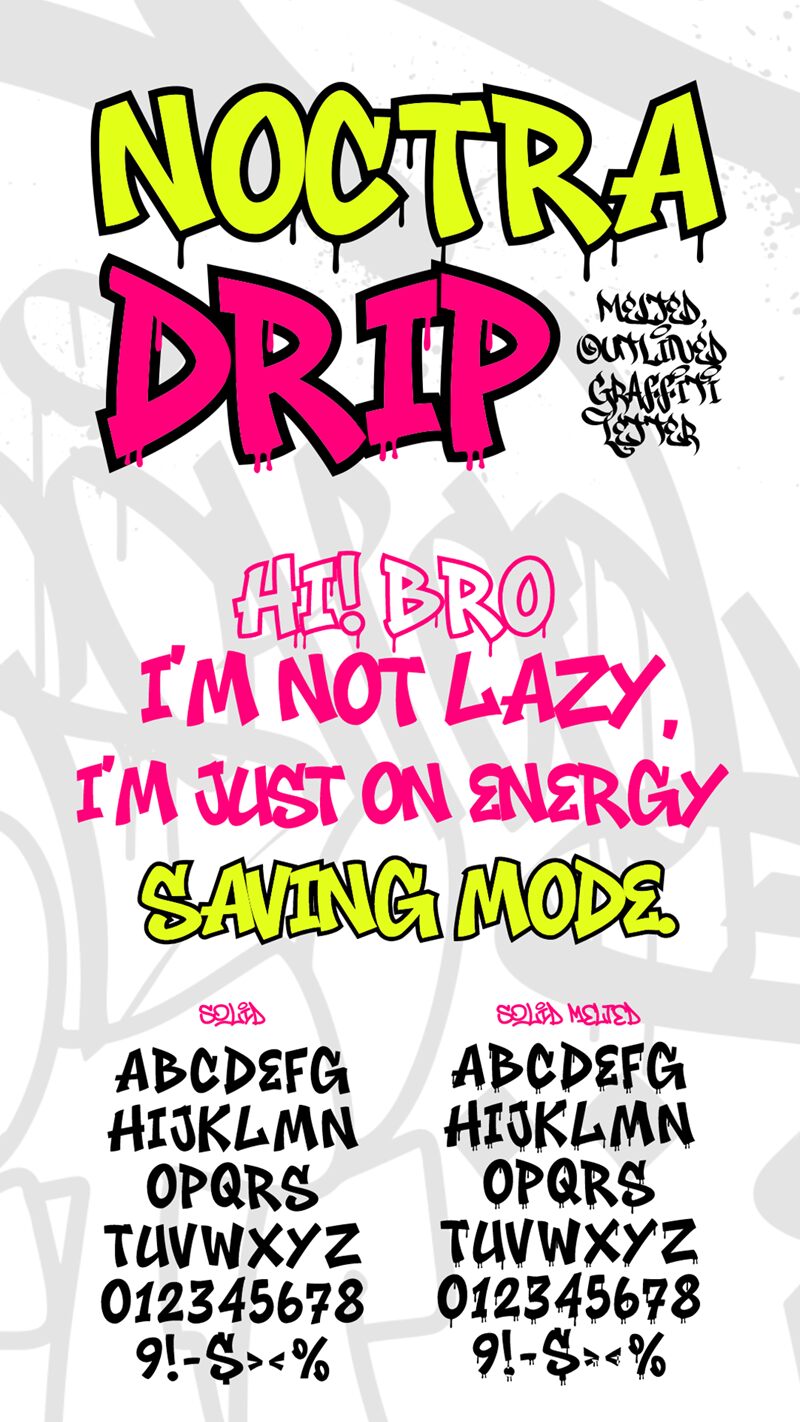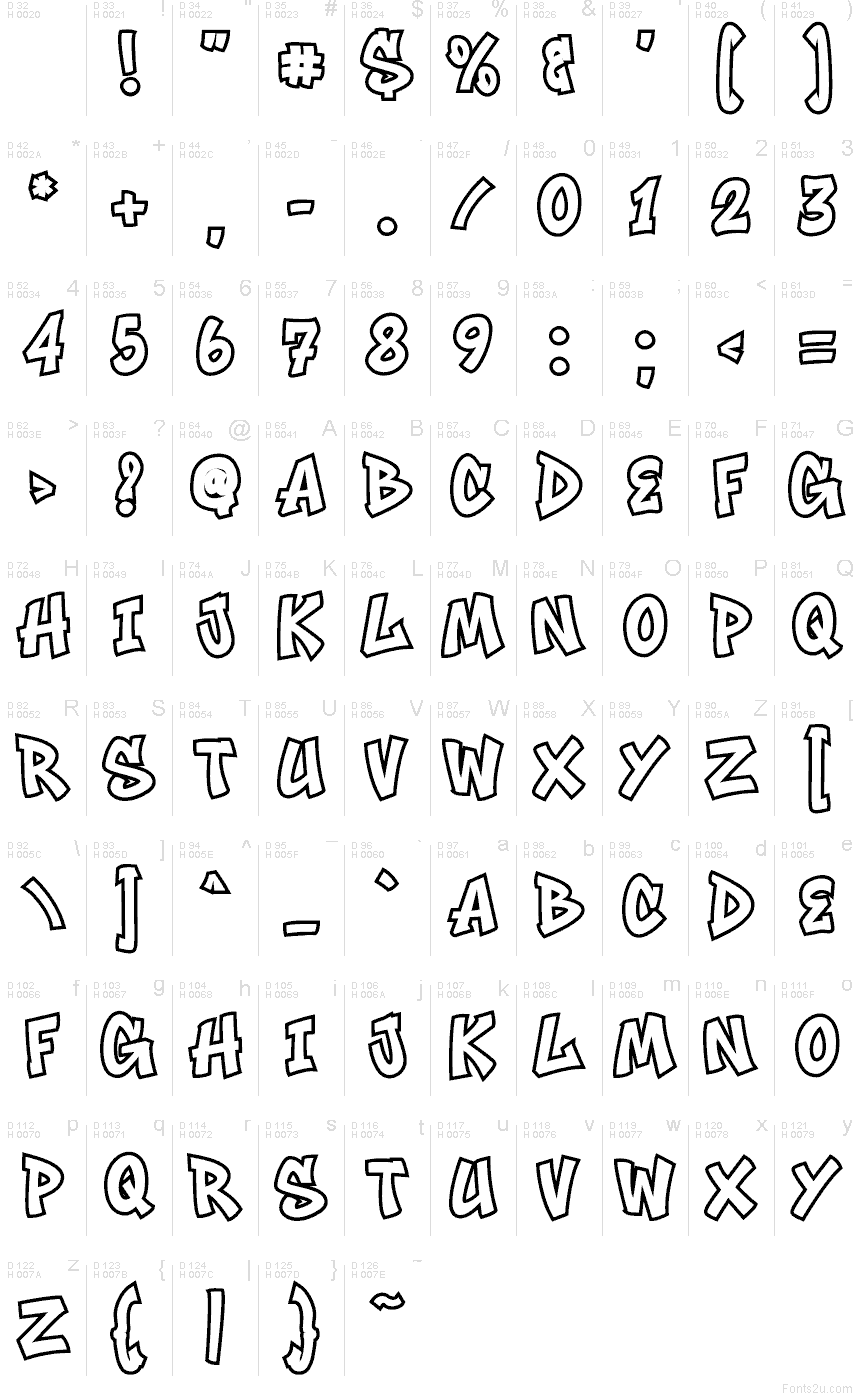
Noctra Drip Outline font by Muhammad Panji Ramdhani of Sipanji x Figuree is a free graffiti font, and this typeface brings a puffy, hand-drawn outline that feels like fresh marker ink about to melt. The chunky shapes stay readable while the wobble and drip energy keep it loud, playful, and a little rebellious.
Using Noctra Drip Outline works beautifully for streetwear logos, sticker packs, skate posters, music flyers, YouTube thumbnails, graffiti-style merch, and punchy social headers. Set it big so the outline can breathe, then pair it with a clean condensed sans for dates, prices, or captions-this free font does the shouting, the sans does the explaining.